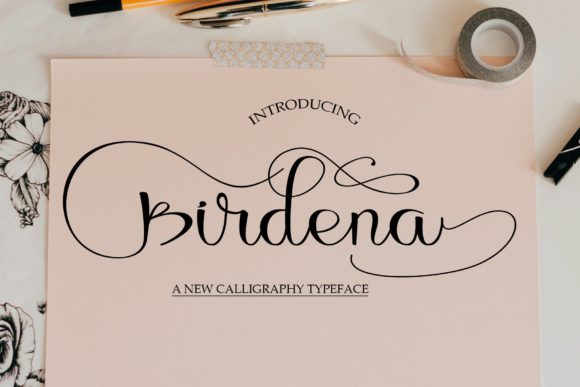
Discover the Elegance of Birdena Font: A Modern Calligraphy Typeface
In the world of typography, few fonts manage to capture the essence of modern calligraphy as beautifully as Birdena Font. This stunning typeface is a masterpiece of contemporary design, boasting a range of features that make it perfect for creative projects. From its dancing bases and cute ligatures to its amazing swashes, Birdena Font is a treasure trove of design possibilities. In this article, we’ll delve into the unique characteristics of Birdena Font and explore how you can harness its elegance to elevate your designs.
The Unique Features of Birdena Font
Birdena Font is more than just a typeface; it’s an experience. Its modern calligraphy style is characterized by:
- Dancing Bases: The bases of the letters in Birdena Font have a subtle dance-like movement, adding a touch of dynamism and elegance to any text.
- Cute Ligatures: Ligatures are special characters that combine two or more letters into a single glyph. Birdena Font features ligatures that are not only functional but also adorable, enhancing the overall aesthetic of your text.
- Amazing Swashes: Swashes are decorative strokes that can be added to letters to give them a more personalized look. Birdena Font comes with a variety of swashes that can dramatically change the appearance of your text, making it perfect for headings, titles, and any design that requires a touch of sophistication.
Why Designers and Crafters Love Birdena Font
Birdena Font has quickly become a favorite among designers and crafters for several reasons:
- Versatility: Whether you’re working on a branding project, a website, a craft project, or any other design endeavor, Birdena Font can adapt to any style or theme.
- Elegance: The modern calligraphy style of Birdena Font adds a level of elegance and sophistication to any design, making it perfect for projects that require a refined look.
- Easy to Use: Despite its complex appearance, Birdena Font is surprisingly easy to use, even for those who are new to design. Its intuitive ligatures and swashes make it simple to create beautiful text.
How to Get Inspired by Birdena Font
Getting inspired by Birdena Font is easy, thanks to its unique features and the endless design possibilities it offers. Here are a few tips to get you started:
- Experiment with Different Sizes: The impact of Birdena Font can vary greatly depending on the size it’s used in. Experiment with different sizes to see how it can be used for both headings and body text.
- Play with Swashes and Ligatures: Don’t be afraid to get creative with the swashes and ligatures. They can dramatically change the look of your text and add a personal touch to your designs.
- Combine with Other Fonts: Birdena Font pairs well with a variety of other fonts. Try combining it with simpler fonts to create a striking contrast or with other script fonts for a more uniform look.
| Font Name | Birdena Font |
| Author | Serdaribut Studio |
Birdena Font is a gorgeous and modern calligraphy typeface that offers designers and crafters a wealth of creative possibilities. Its dancing bases, cute ligatures, and amazing swashes make it a standout in the world of typography. Whether you’re looking to add a touch of elegance to your designs or simply want to experiment with something new and exciting, Birdena Font is an excellent choice. So why wait? Dive into the world of Birdena Font today and let its unique look inspire you to create amazing designs.